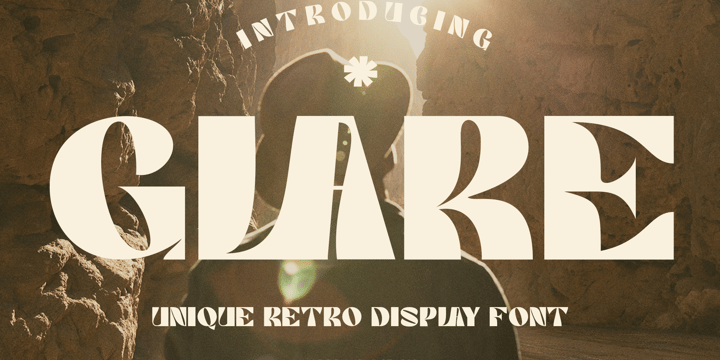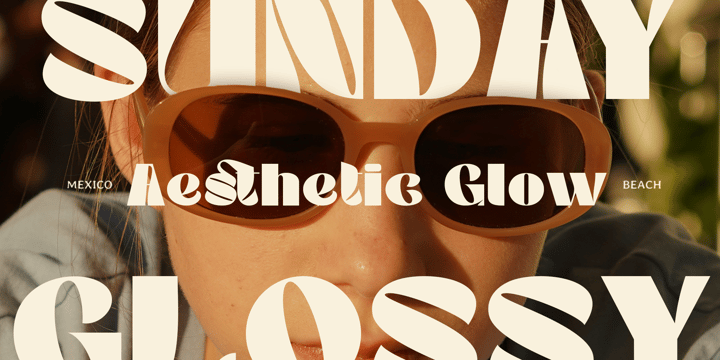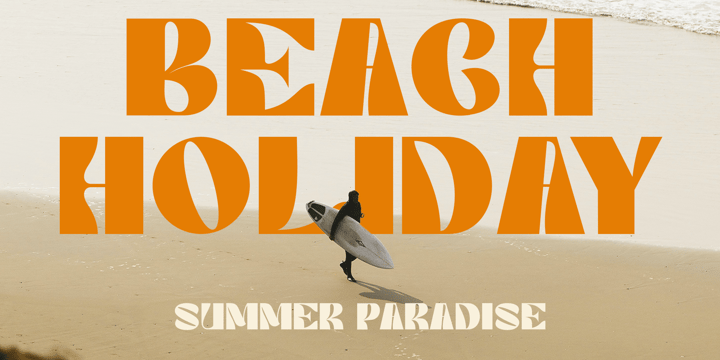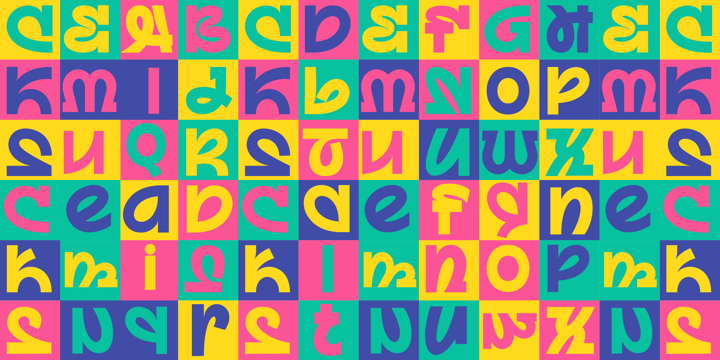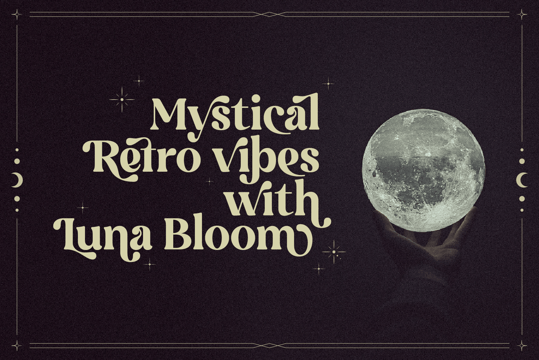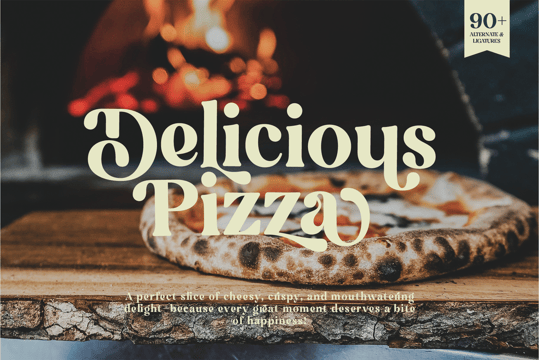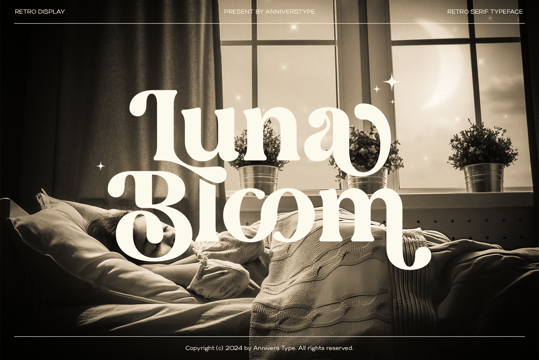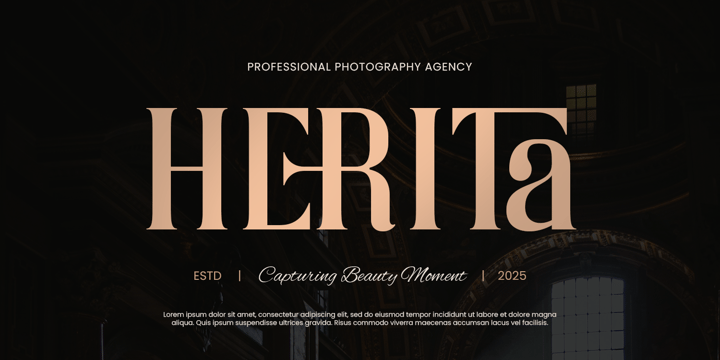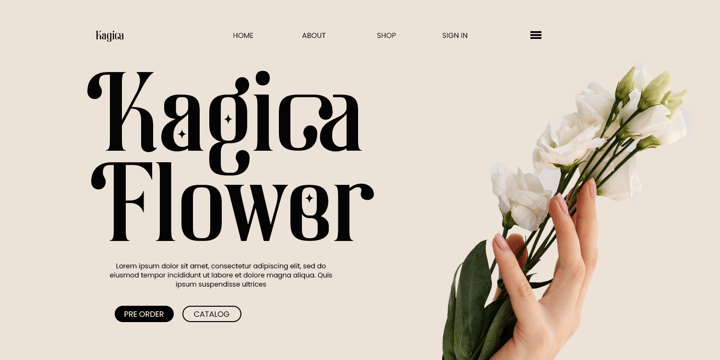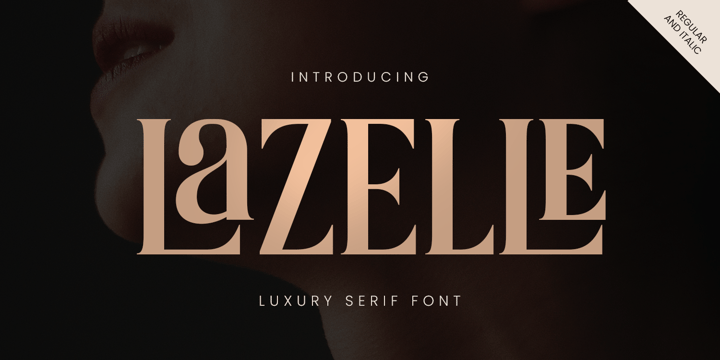
Sigit Ananta is the founder and sole designer at Annivers Type Foundry, based in East Java, Indonesia. With over five years of experience in type design, Sigit focuses on creating professional fonts that blend technical expertise with high creativity. Through Annivers Type, Sigit offers a diverse range of typefaces, from classic serifs to retro display styles, crafted to meet the creative needs of designers and brands worldwide.